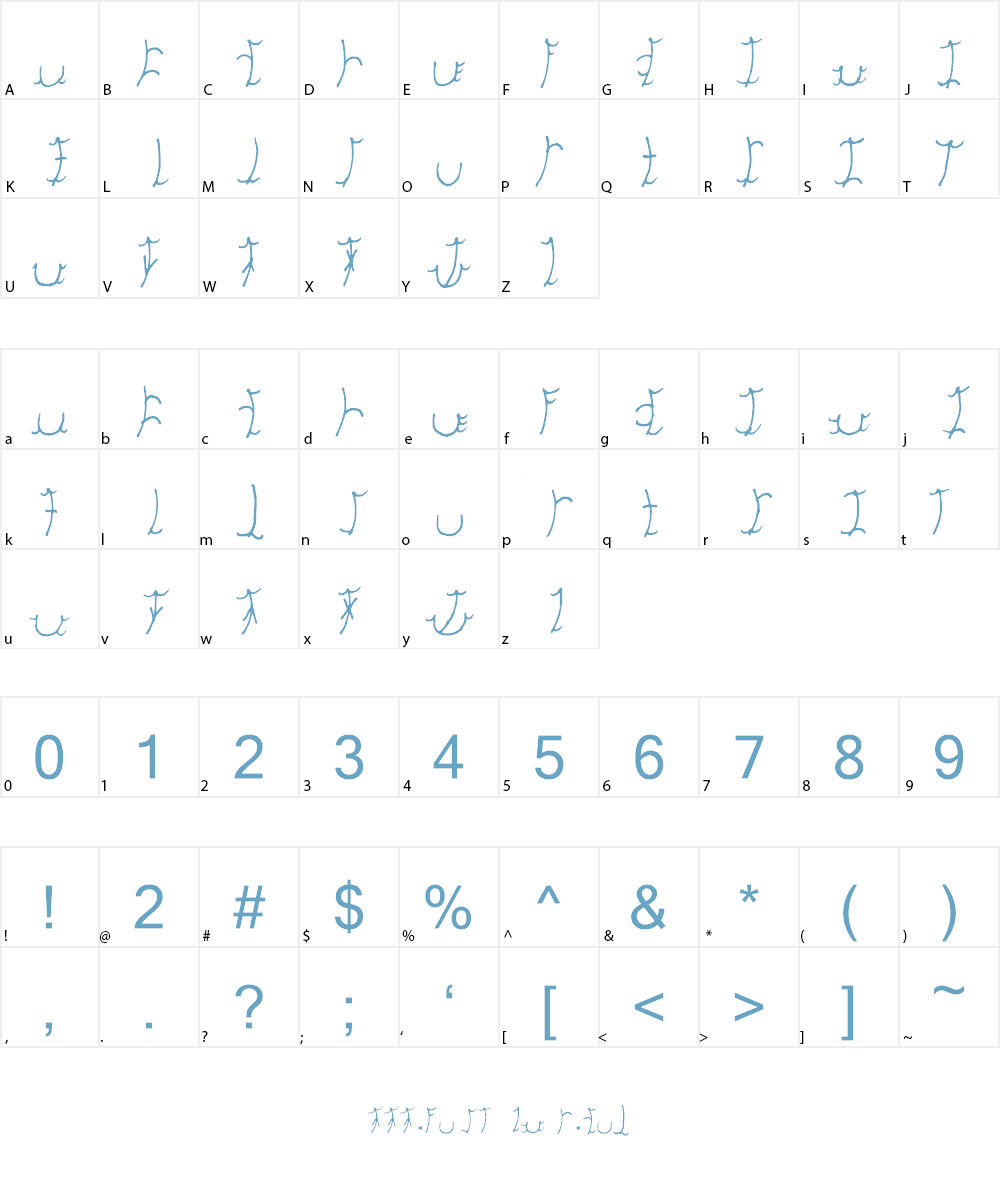
Recommended use: Secret messages in code.
Edronheem script is a script exclusively made for the “Edronheem” people of the world of Promentory (which is a collective name for the peoples of the dwarves, the elves, and the faeries\leprechauns), but is now made available to you through this download.
Note: For your best experience, please use the Edronheem Script under size 20 in your documents... also, updates will come out as regularly as the are available, including (hopefully) the addition of Edronheem commas, periods, and general punctuation marks. Also, it is advised that you do not try to write symbols in this script, for your extreme best experience. Thanks for downloading, have a nice day!